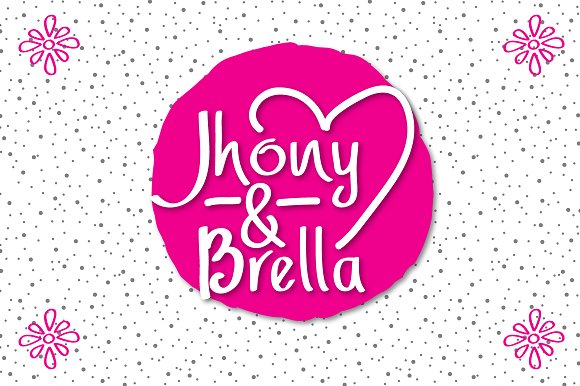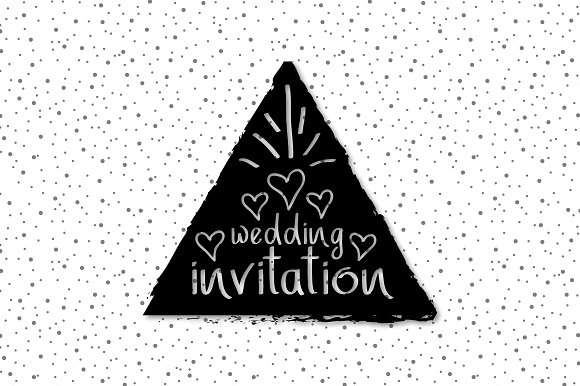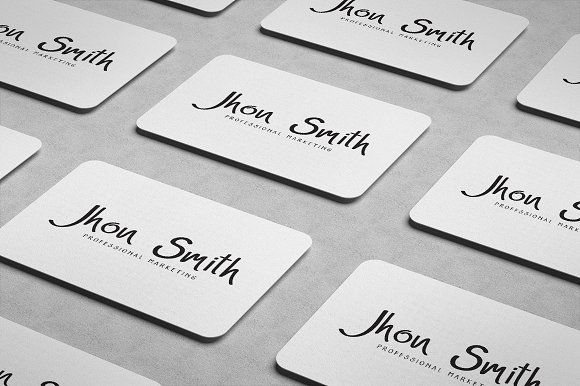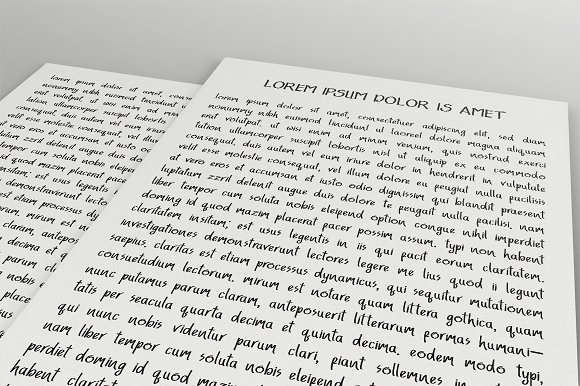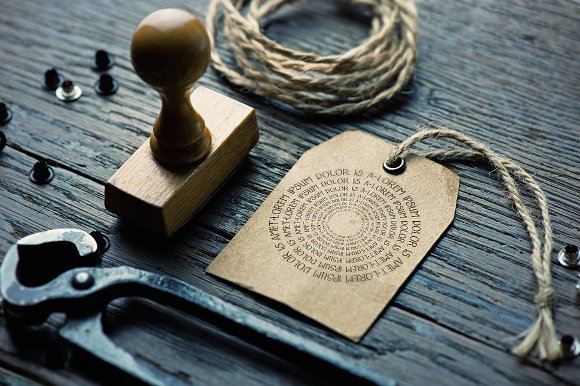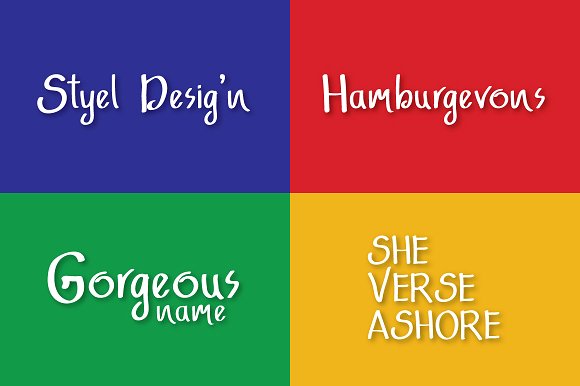
Introducing Adfonture Font: The Sweet and Smooth Handwritten Font for Designers and Crafters
Are you a designer or crafter looking for a unique and elegant font to add a personal touch to your creations? Look no further than Adfonture Font, a beautiful handwritten font created by the talented team at Atjcloth Studio. In this article, we’ll dive into the features and benefits of Adfonture Font, and explore how it can elevate your designs and crafts to the next level.
What is Adfonture Font?
Adfonture Font is a sweet and smooth handwritten font that is clear to read and perfect for creating stunning personalized items. With its elegant and flowing script, Adfonture Font is ideal for a variety of design projects, from greeting cards and invitations to branding and packaging. Whether you’re a professional designer or a crafty DIY enthusiast, Adfonture Font is a versatile and user-friendly choice that will help you add a touch of personality to your work.
Features of Adfonture Font
So, what makes Adfonture Font so special? Here are just a few of its key features:
- Sweet and smooth script: Adfonture Font features a beautiful, flowing script that is easy to read and looks great in a variety of sizes.
- Clear and legible: Unlike some handwritten fonts, Adfonture Font is clear and legible, making it perfect for body text and other applications where readability is key.
- Versatile: Adfonture Font is a versatile font that can be used for a wide range of design projects, from digital designs to print materials.
- Easily customizable: With Adfonture Font, you can easily adjust the font size, color, and style to fit your design needs.
Benefits of Using Adfonture Font
So, why should you choose Adfonture Font for your design projects? Here are just a few benefits of using this beautiful font:
- Adds a personal touch: With Adfonture Font, you can add a personal touch to your designs and crafts, making them stand out from the crowd.
- Enhances readability: Adfonture Font is clear and easy to read, making it perfect for body text and other applications where readability is key.
- Perfect for crafters: Adfonture Font is a great choice for crafters who want to add a personal touch to their DIY projects, such as handmade cards, gift tags, and more.
- Supports creative freedom: With Adfonture Font, you have the freedom to experiment with different design styles and ideas, making it perfect for creative designers and crafters.
Adfonture Font is a beautiful and versatile handwritten font that is perfect for designers and crafters looking to add a personal touch to their creations. With its sweet and smooth script, clear readability, and ease of use, Adfonture Font is a great choice for a wide range of design projects. Whether you’re creating digital designs or print materials, Adfonture Font is sure to become a favorite in your font collection.